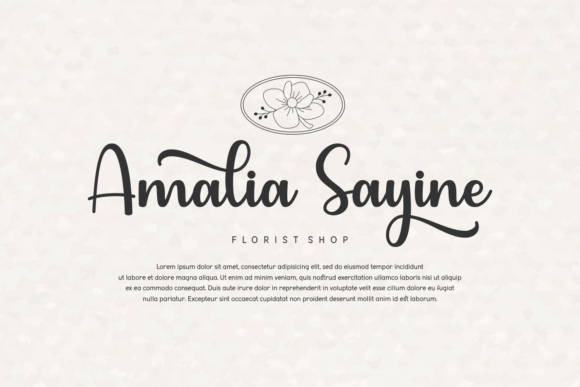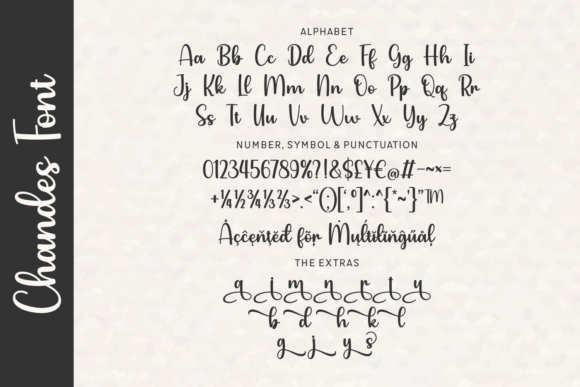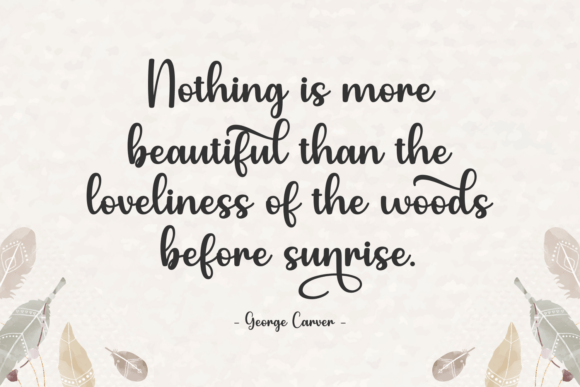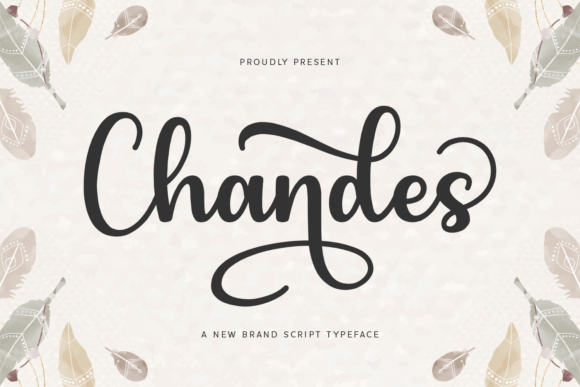
Introducing Chandes Font: Elevate Your Designs with Elegance and Flair
In the world of typography, fonts play a crucial role in conveying messages, evoking emotions, and setting the tone for designs. Among the myriad of fonts available, Chandes stands out as a bold script font that embodies elegance, sophistication, and versatility. Whether you’re a designer, crafter, or simply someone who appreciates beautiful typography, Chandes is sure to captivate you with its unique charm.
The Essence of Chandes Font
Chandes is a bold script font characterized by its elegant, flowing letters that exude a sense of luxury and refinement. Its modern yet classic design makes it an excellent choice for a wide range of applications, from eye-catching titles and invitations to stylish quotes and headlines. The font’s unique blend of contemporary flair and timeless charm allows it to seamlessly integrate into various design projects, adding a touch of sophistication and glamour.
Key Features of Chandes Font
- Elegant and Flowing Letters: Chandes boasts beautifully crafted letters that flow effortlessly, creating a sense of continuity and harmony.
- Bold and Versatile: The font’s bold design makes it perfect for headlines, titles, and quotes, while its versatility allows it to be used in various design contexts.
- Modern yet Classic: Chandes strikes the perfect balance between modern style and classic charm, making it suitable for both contemporary and traditional designs.
- Easy to Read: Despite its bold and elegant design, Chandes remains highly legible, ensuring that your message is conveyed clearly and effectively.
Uses of Chandes Font
Chandes is an incredibly versatile font that can be used in a multitude of design projects, including:
- Invitations and Event Materials: Add a touch of elegance to your wedding invitations, party invites, or event posters with Chandes.
- Headlines and Titles: Use Chandes to create bold and eye-catching headlines for magazines, newspapers, or websites.
- Branding and Packaging: Incorporate Chandes into your brand identity or packaging design to convey a sense of luxury and sophistication.
- Quotes and Typography: Showcase inspiring quotes or lyrics with Chandes, adding a touch of style and flair to your designs.
Tips for Using Chandes Font
To get the most out of Chandes, consider the following tips:
- Pair with Neutral Backgrounds: Allow Chandes to take center stage by pairing it with neutral backgrounds that won’t compete with the font’s elegance.
- Experiment with Colors: Try Chandes with different colors to find the perfect combination that suits your design and brand identity.
- Mix with Other Fonts: Combine Chandes with complementary fonts to create visually appealing typography and add depth to your designs.
Chandes font is a stunning addition to any designer’s toolkit, offering a unique blend of elegance, sophistication, and versatility. With its bold script design and flowing letters, Chandes is perfect for creating eye-catching titles, invitations, and quotes that demand attention. Whether you’re a seasoned designer or a crafty enthusiast, Chandes is sure to inspire you to create beautiful and effective designs that leave a lasting impression.